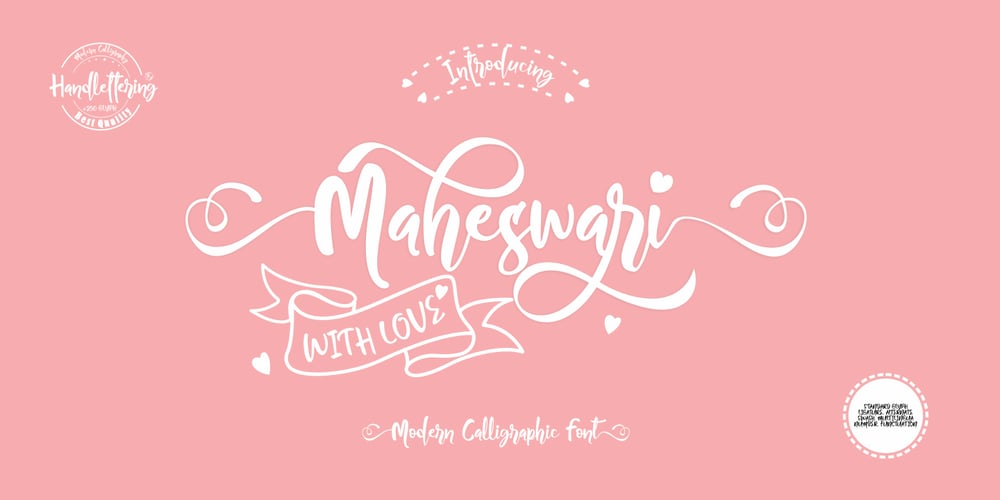
Maheswari
Maheswari font
Maheswari Font Family was designed by Daddi Daryawan and published by Creativework Studio. Maheswari contains 1 styles and family package options. Maheswari is a modern calligraphy style font that can be used for product brands, crafts, wedding invitations, this font is very artistic, so It is perfectly suited for a wide variety of projects. To further beautify your design, Maheswari is equipped with several very charming ligature and alternate characters.